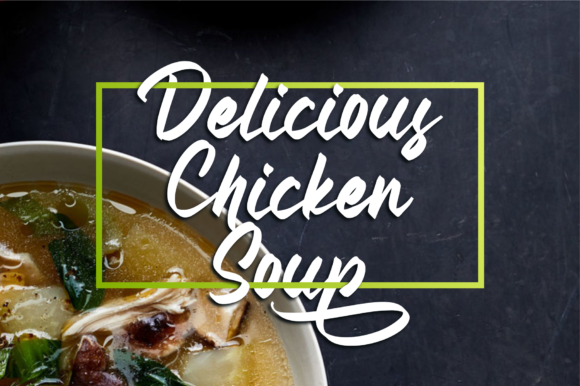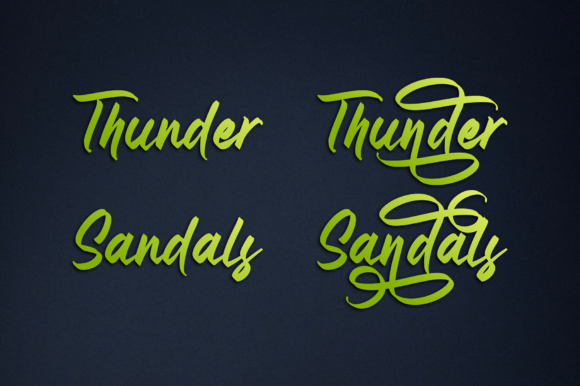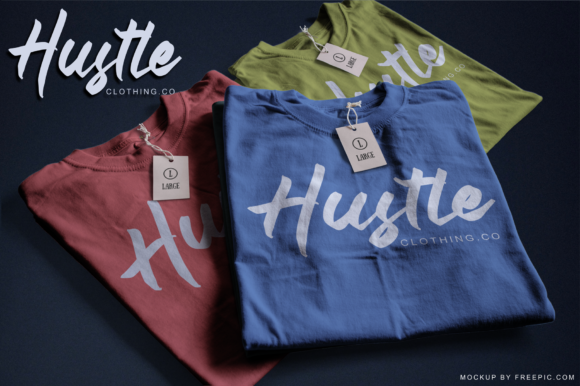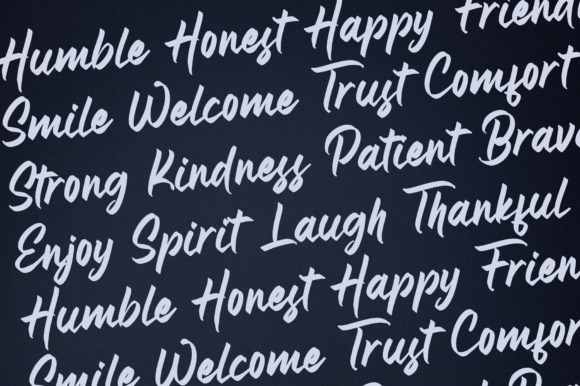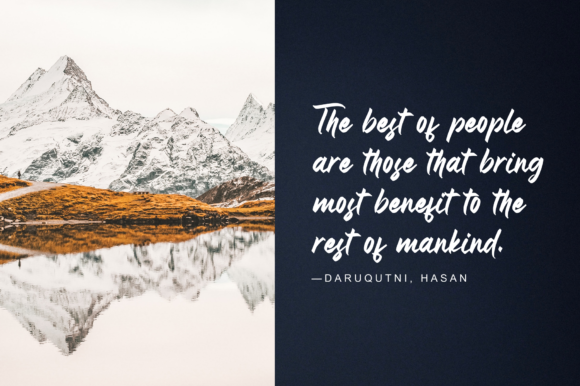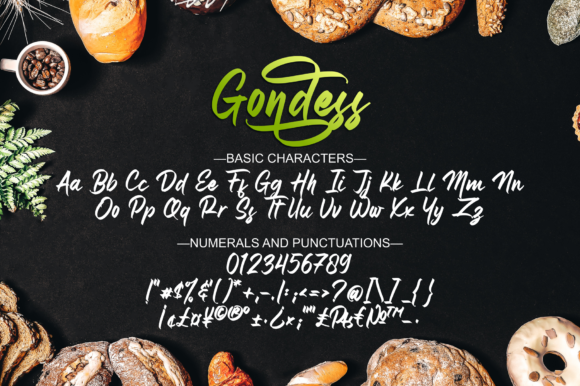
Gondess Font: The Ultimate Playful Script for Designers and Crafters
In the world of typography, fonts play a crucial role in conveying the tone and personality of a brand or design. For designers and crafters looking for a unique and versatile script font, Gondess is an excellent choice. This modern and cool script font radiates authenticity and features a wide range of alternates, making it incredibly versatile for various design projects.
What is Gondess Font?
Gondess is a carefully crafted script font that boasts a playful and modern aesthetic. Its unique design elements and extensive character set make it an ideal choice for designers seeking to add a personal touch to their work. Whether you’re creating a logo, branding materials, or craft projects, Gondess is sure to make a statement.
Key Features of Gondess Font
- Playful and Modern Design: Gondess features a fresh and contemporary design that is sure to capture the attention of your audience.
- Wide Range of Alternates: With a vast array of alternates, Gondess offers an incredibly high level of versatility, allowing you to experiment with different styles and tones.
- Authenticity: This font radiates authenticity, making it perfect for designers and crafters looking to add a personal touch to their work.
- Script Font: Gondess is a script font that is ideal for creating elegant and sophisticated designs.
Uses of Gondess Font
Gondess is a versatile font that can be used in a variety of design projects, including:
- Logo Design: Create a unique and memorable logo for your brand with Gondess.
- Branding Materials: Use Gondess to create business cards, brochures, and other marketing materials that reflect your brand’s personality.
- Craft Projects: Add a personal touch to your craft projects, such as handmade cards, invitations, and scrapbooking.
- Digital Design: Use Gondess in digital designs, such as social media graphics, blog posts, and website headers.
Benefits of Using Gondess Font
By using Gondess font in your design projects, you can:
- Stand Out: With its unique and playful design, Gondess can help your designs stand out from the crowd.
- Convey Personality: This font radiates authenticity, allowing you to convey your brand’s or personal style.
- Increase Versatility: With a wide range of alternates, Gondess offers an incredibly high level of versatility, making it suitable for various design projects.
Tips for Using Gondess Font
To get the most out of Gondess font, consider the following tips:
- Experiment with Alternates: Take advantage of Gondess’s extensive character set and experiment with different alternates to find the perfect style for your design.
- Pair with Other Fonts: Combine Gondess with other fonts to create a unique and visually appealing design.
- Use in Digital and Print Designs: Gondess is suitable for both digital and print designs, making it a versatile addition to your font collection.
Gondess font is a playful, modern, and cool script that radiates authenticity. With its wide range of alternates and versatile design, it’s an excellent choice for designers and crafters looking to add a personal touch to their work. Whether you’re creating logos, branding materials, or craft projects, Gondess is sure to make a statement. So why not give Gondess a try and take your designs to the next level?